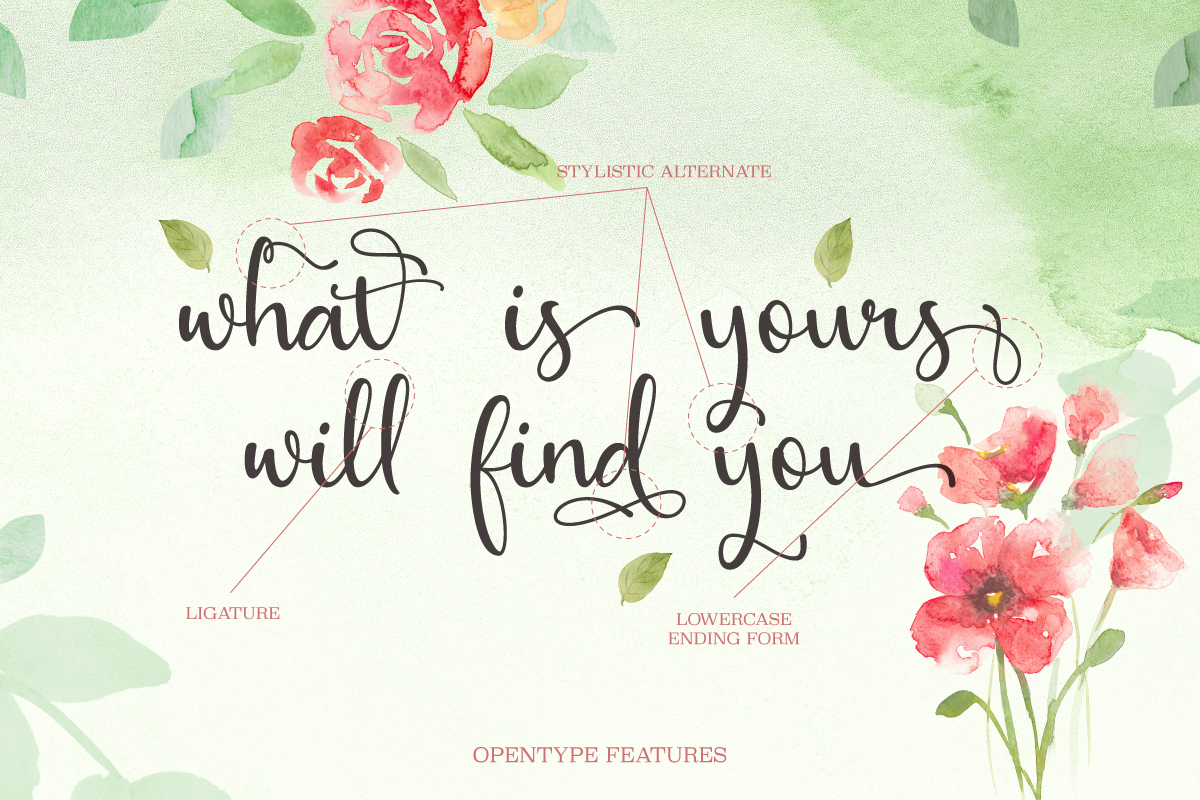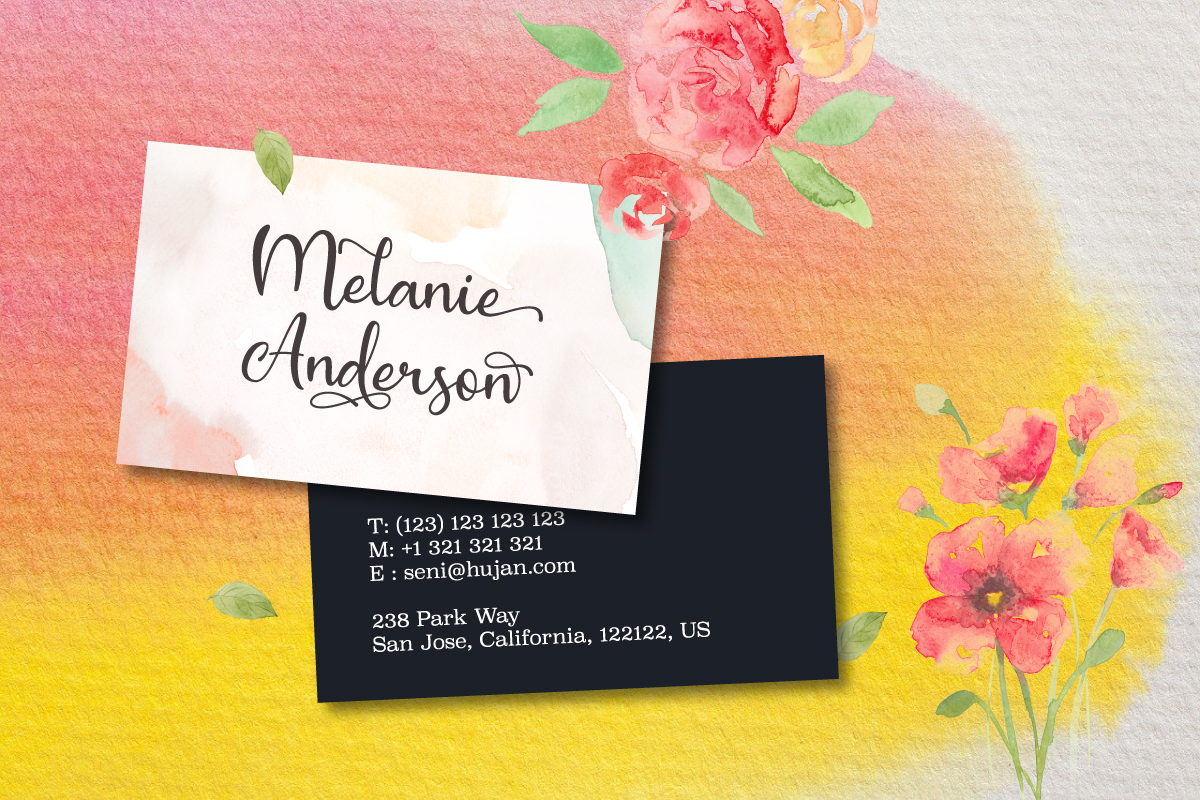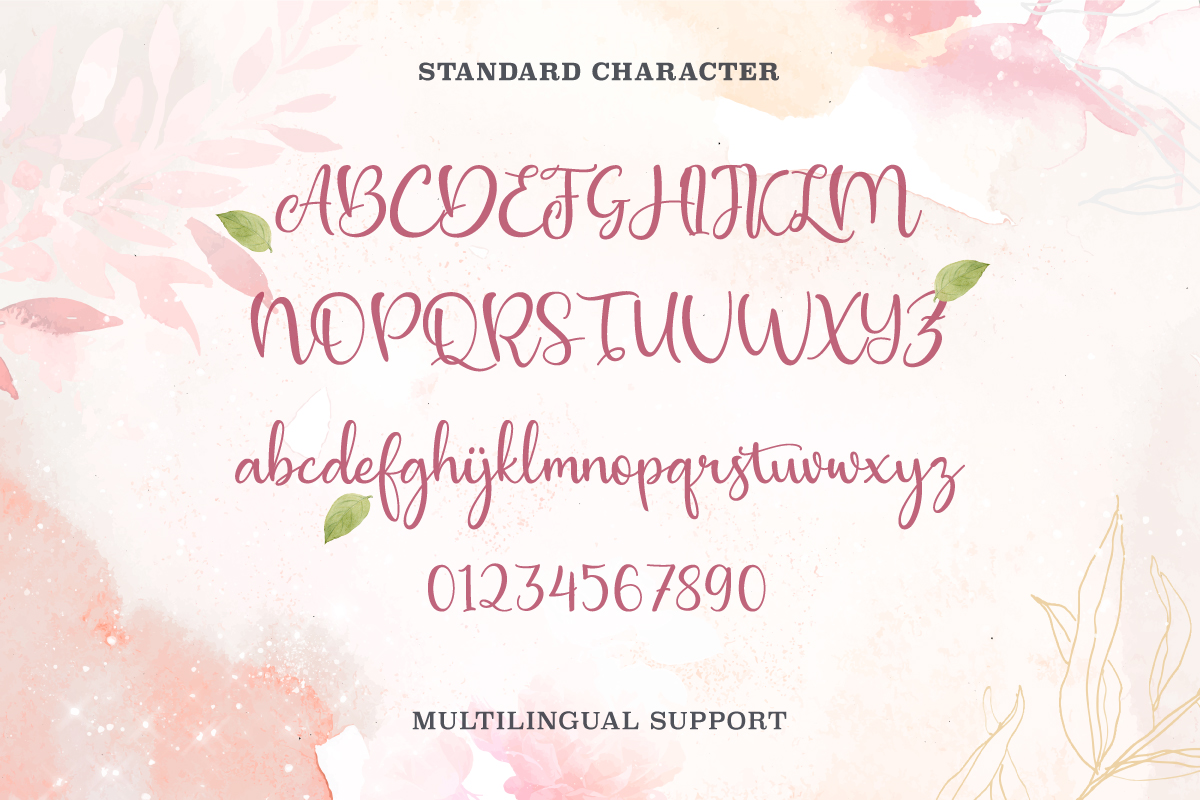
Introducing Allana Beauty Font!
This font was designed by Senihujan Studio, and this is a premium font, but it was great, it is free today for download. The Allana Beauty font is great for Branding, Logo Design, Lettering, Logotype, Clothing, Poster, magazine, and other design projects.